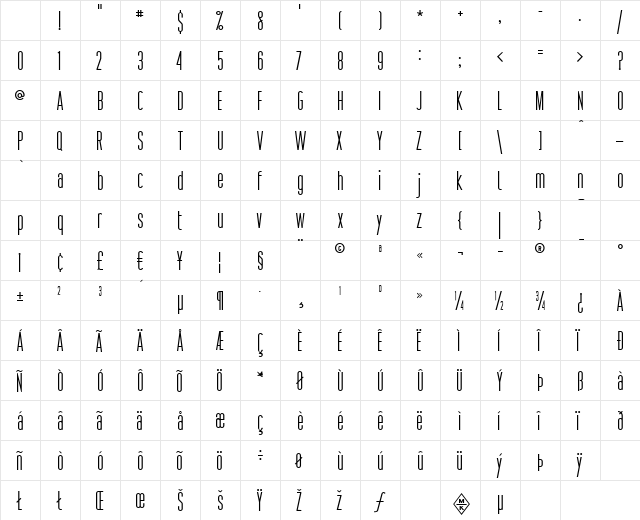
Pacific Standard is a composed and adaptable typeface that performs quietly and consistently across a wide range of design contexts. Its slender proportions lend an understated elegance to any composition.